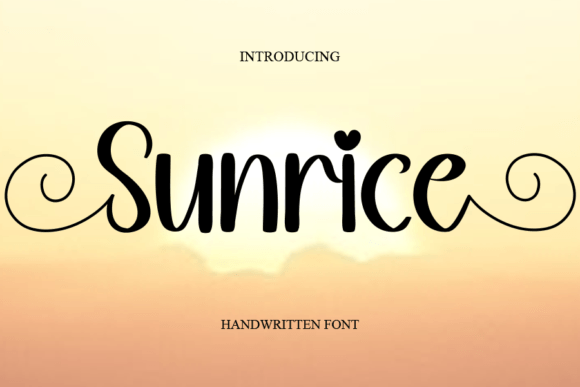
Unleash the charm of your designs with Sunrice, the exquisite script font family, meticulously crafted by Cans Studio. Inspired by the beauty of handwritten notes, Sunrice embodies simplicity, elegance, and a touch of whimsy that will add a personal touch to your creative endeavors.
As a script font, Sunrice possesses an inherent beauty and grace that makes it ideal for wedding invitations, greeting cards, and other heartfelt expressions. Its flowing strokes and delicate curves create a visual symphony that will captivate your audience and leave a lasting impression. Dive into the world of Sunrice and experience the joy of crafting designs that resonate with emotion and authenticity.
Sunrice is not just a font; it's an artistic expression that transcends the boundaries of ordinary typography. Its versatile nature allows it to shine in a wide spectrum of applications, from headlines and logos to social media graphics and branding materials. Whether you're a seasoned designer or just starting your creative journey, Sunrice will effortlessly elevate your designs and make them stand out from the crowd.
With Sunrice, you'll discover a font that seamlessly blends the charm of handwritten notes with the sophistication of digital design. Its simple and natural feel will add a touch of warmth and personality to your projects, creating a connection with your audience that goes beyond words. Experience the transformative power of Sunrice and watch your designs blossom into masterpieces that captivate and inspire.